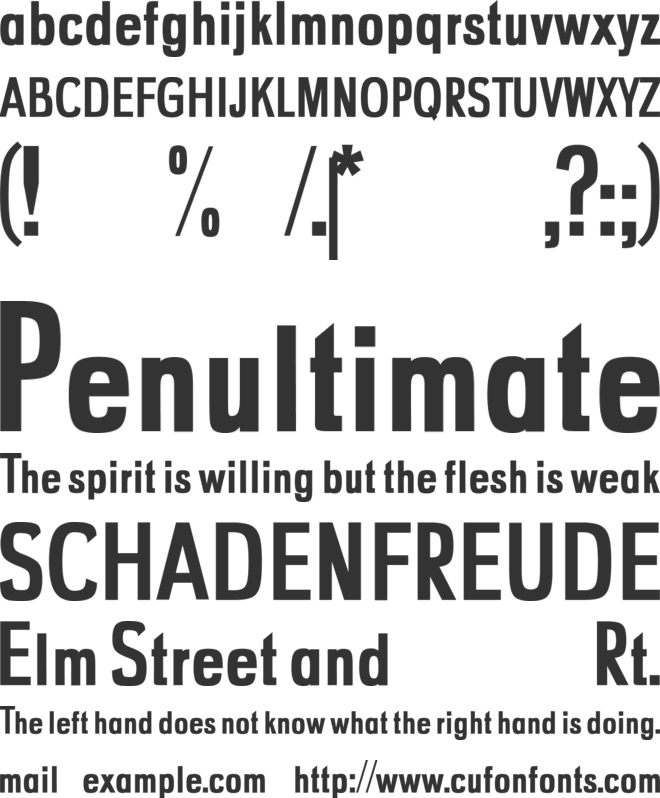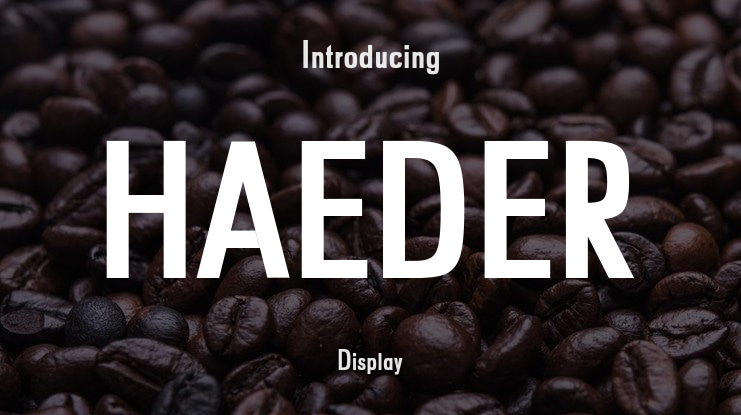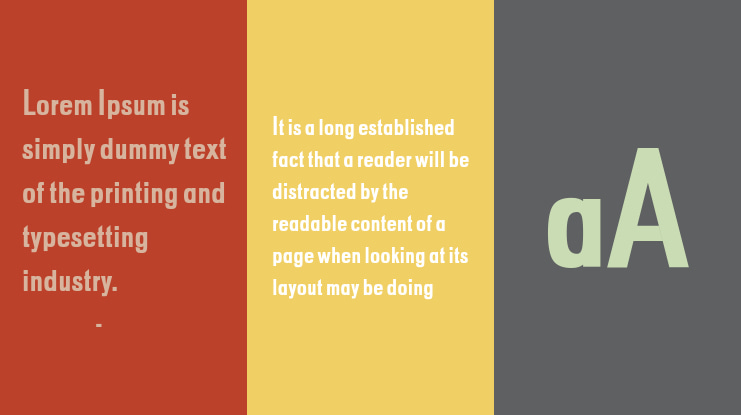
HAEDER Font Family
Haeder is a tall sans serif with multilingual support—perfect for editorial headlines, fashion branding, and minimalist packaging.